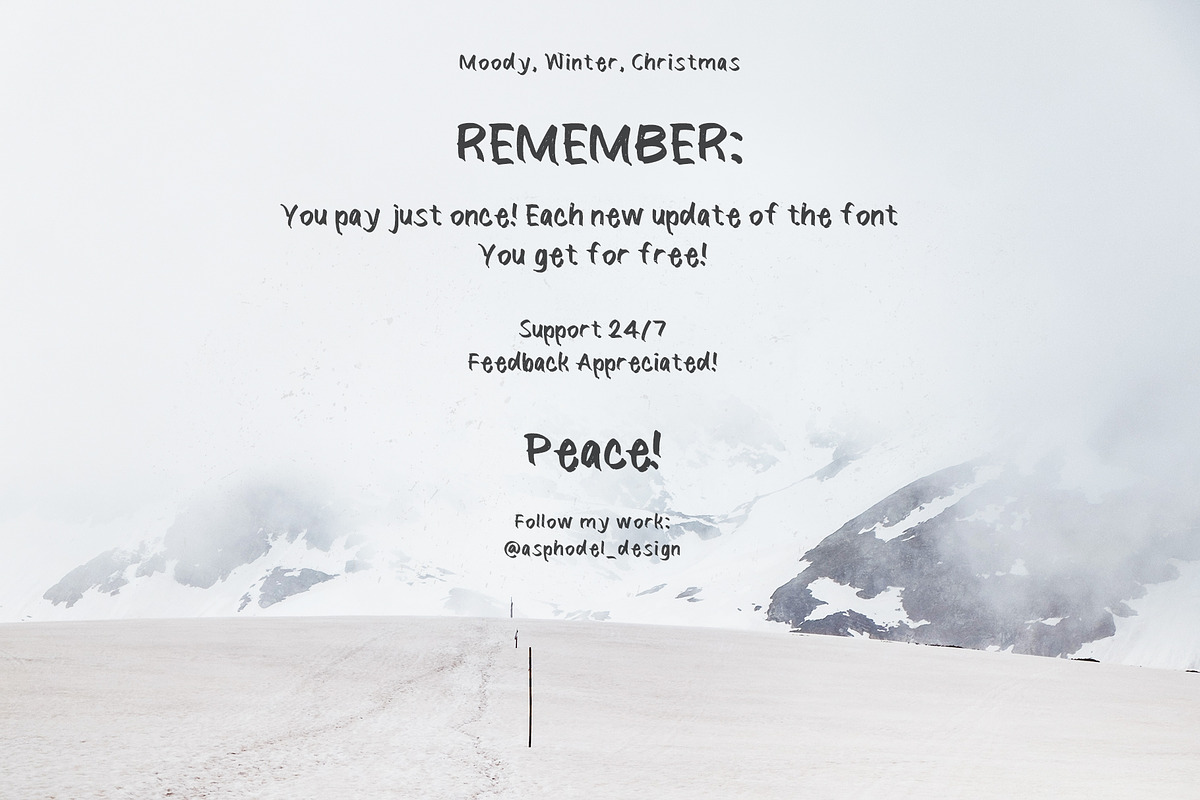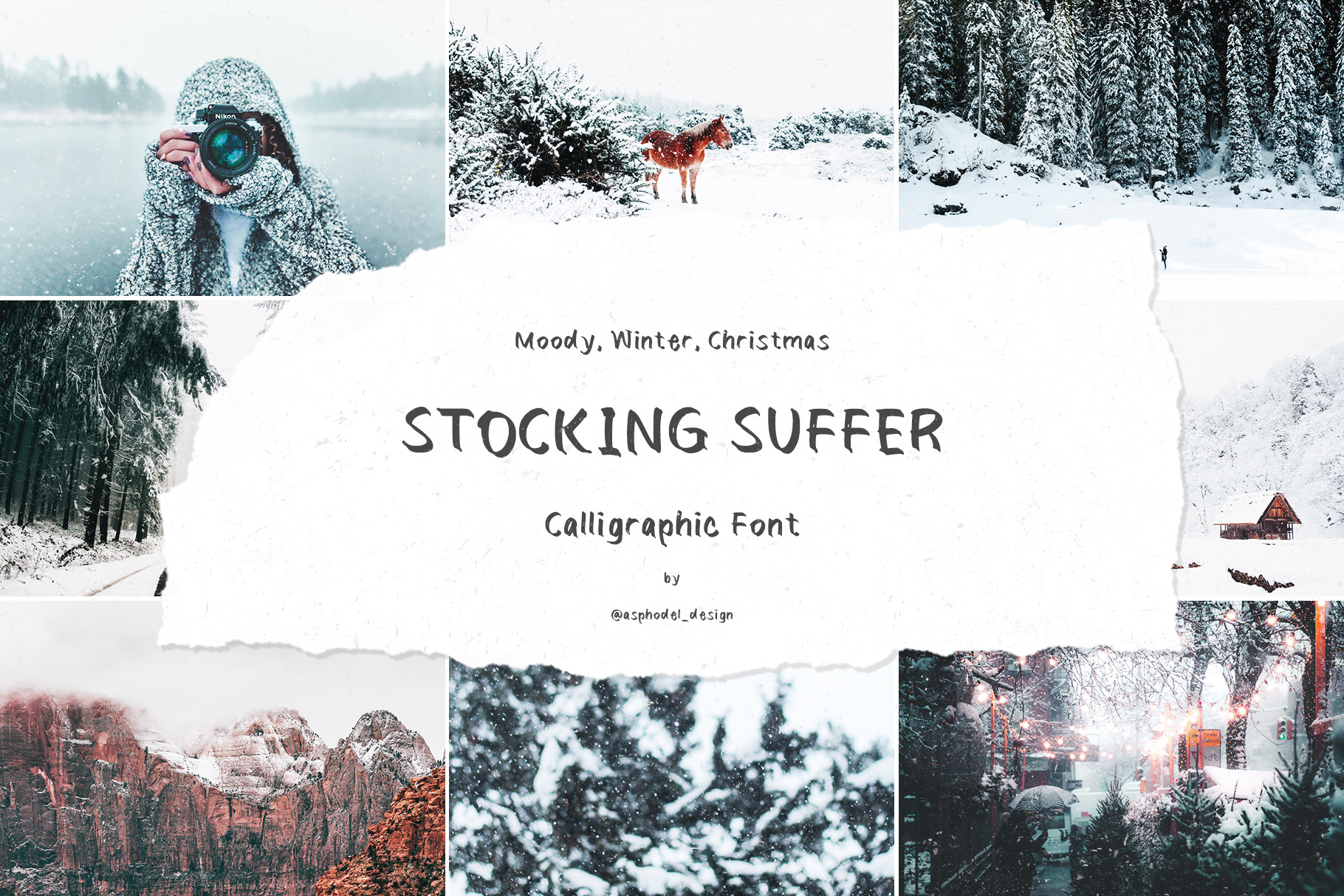
Stocking Suffer Calligraphy Font
๐ข Neat and Modern Calligraphic Font - Stocking Suffer! ๐ข
Three words about the script: Handwritten, Moody and Dreamy!
๐๐ป This calligraphic font is your best friend to create professional and unique artworks and designs!